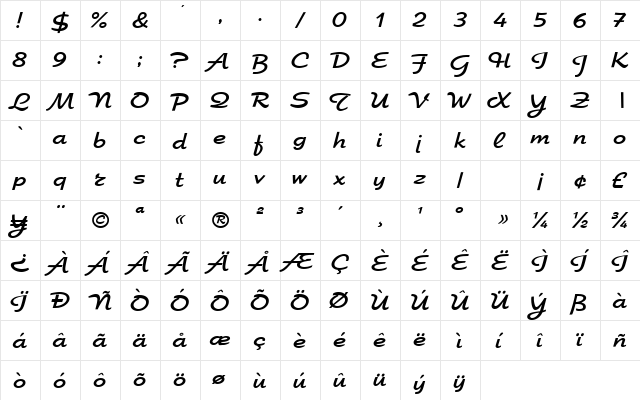
Elfring-Elite Normal
Design Context for Elfring-Elite Typeface
Elfring-Elite is a composed and adaptable typeface that performs quietly and consistently across a wide range of design contexts.